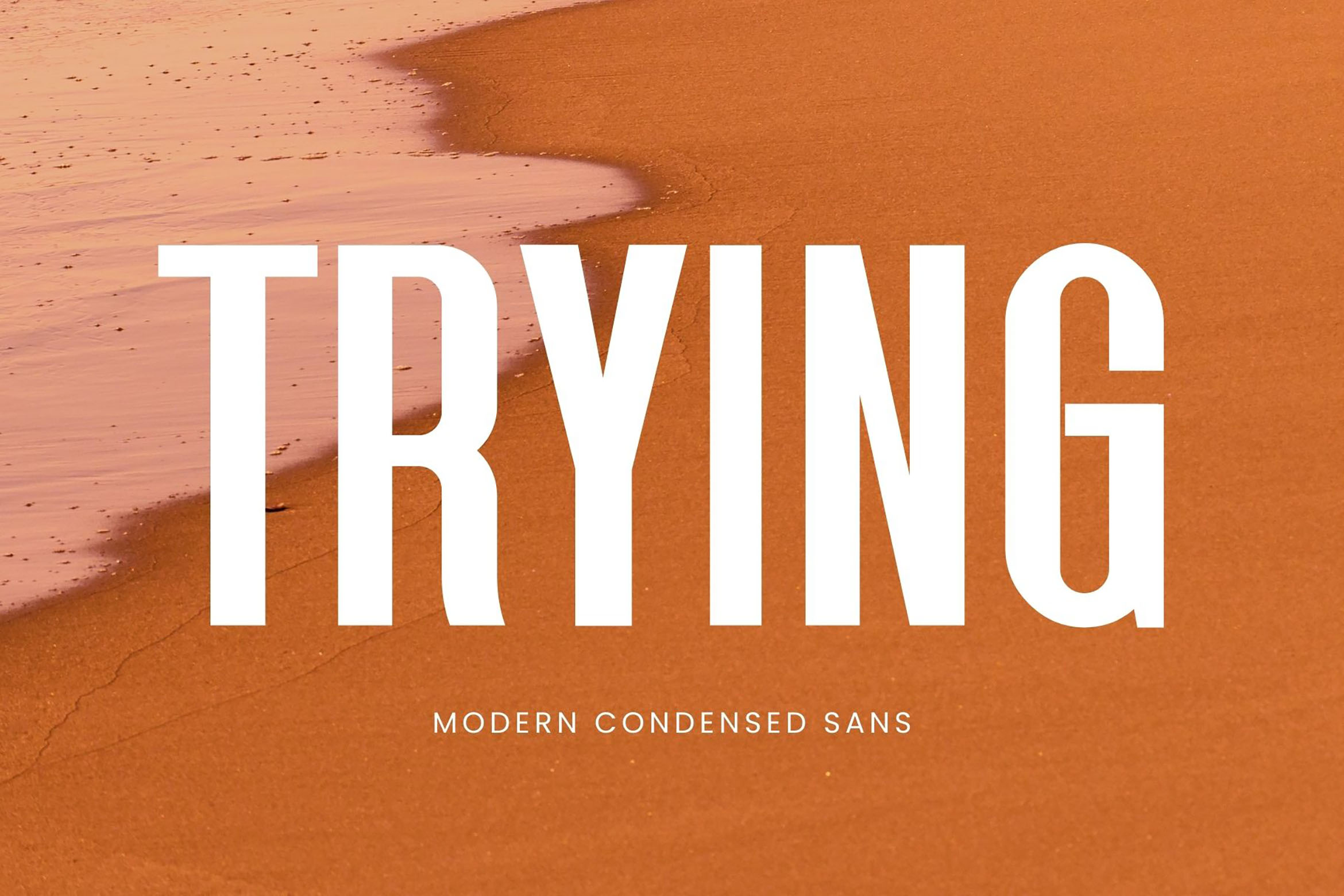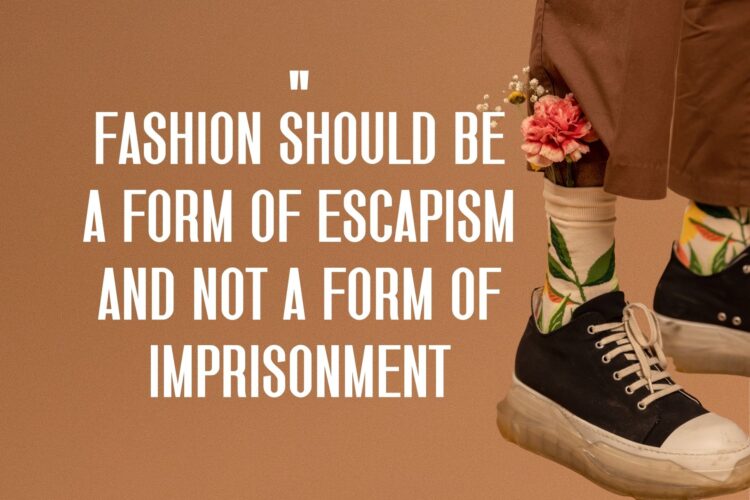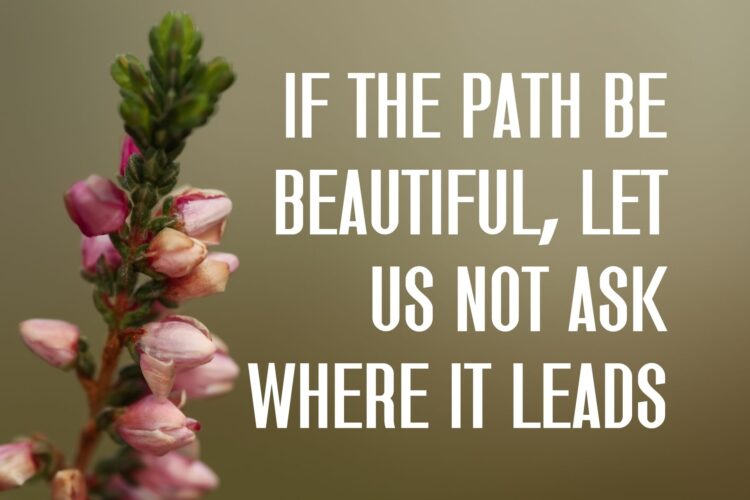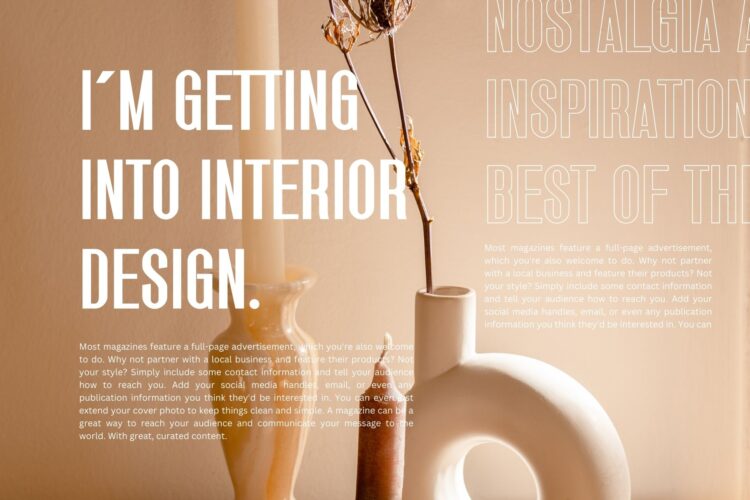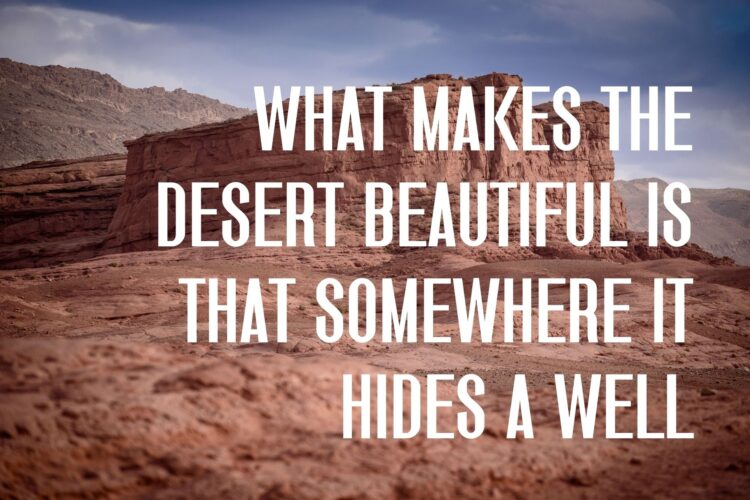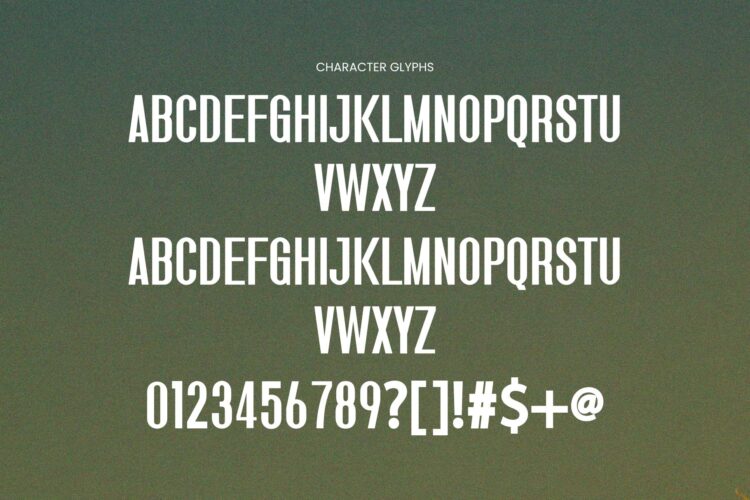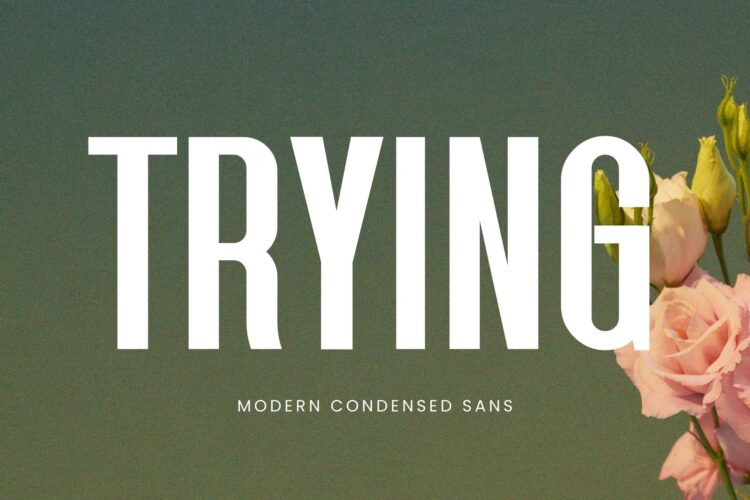
Introducing our new Trying, modern sans serif font with elegant style this is perfect for branding, logos, invitation, magazines, product packaging and more.
Trying – Modern Condensed Sans